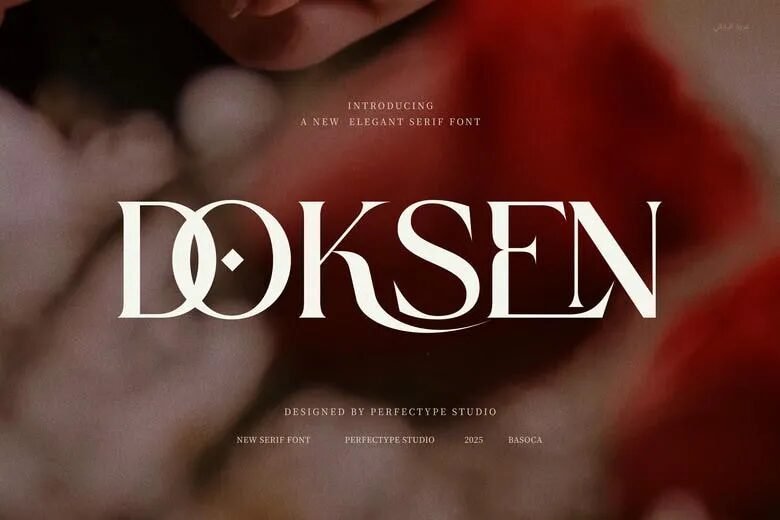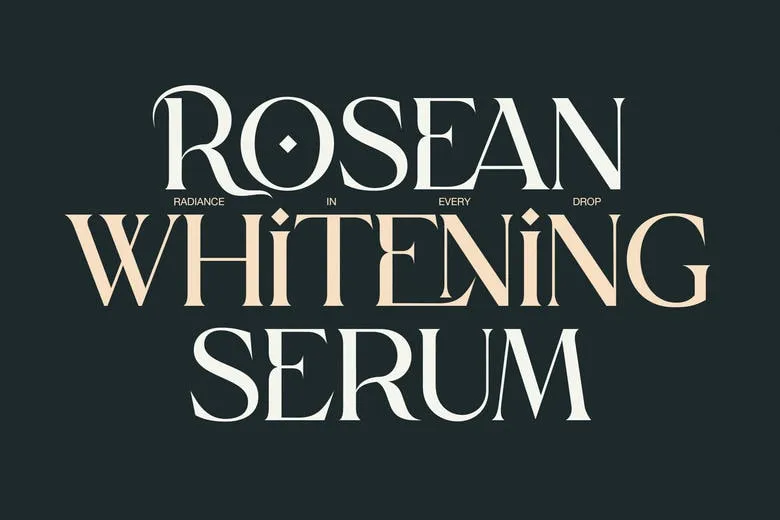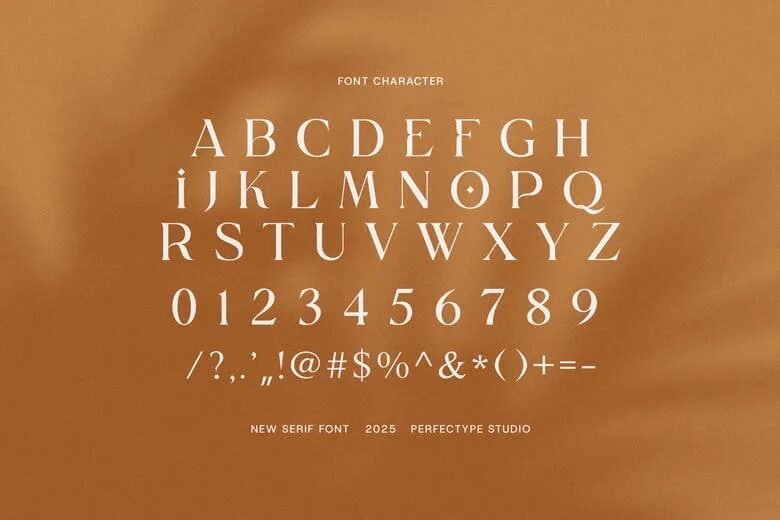
Doksen serif typeface is a polished and contemporary typeface that will add a classic touch of aesthetics to your creative endeavours.
The font is exquisitely designed and tailored with high-end and elegant letter forms, and proportioned finely, which gives a luxurious end product to any design. Whether you design editorials or need to supply classy brands, Doksen will provide both style and diversity. Find more Serif Fonts here.